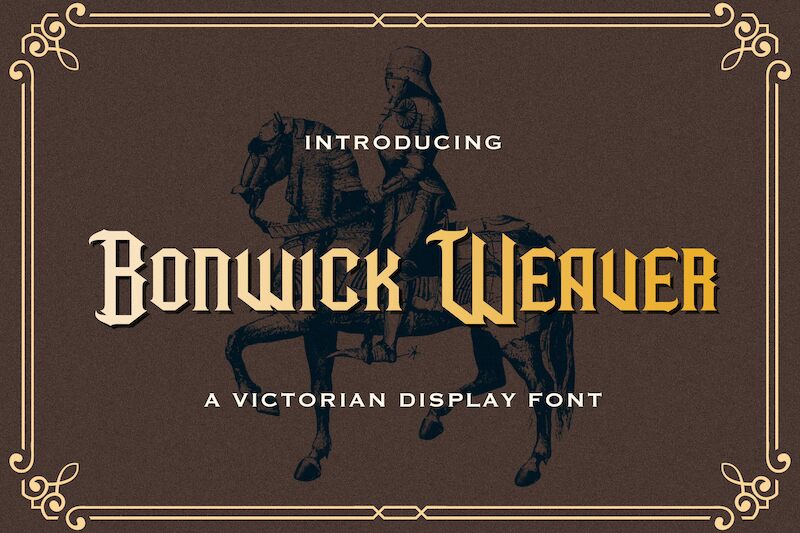
Bonwick Weaver, a modern gothic font crafted by StringLabs Creative Studio, captivates with its bold, angular lines and striking presence. This condensed typeface exudes a sense of strength and authority, its sharp edges and compact form lending an air of contemporary sophistication. Bonwick Weaver's unique visual identity makes it a compelling choice for designers seeking to make a bold, impactful statement.
The versatility of Bonwick Weaver allows it to flourish in a diverse range of design contexts. Its condensed width and gothic-inspired aesthetic lend themselves particularly well to branding, editorial layouts, and attention-grabbing headlines. Whether crafting powerful, eye-catching logos or curating a dynamic, modern typographic aesthetic, Bonwick Weaver's distinct character and versatility make it an invaluable asset for designers seeking to elevate their projects.
Bonwick Weaver